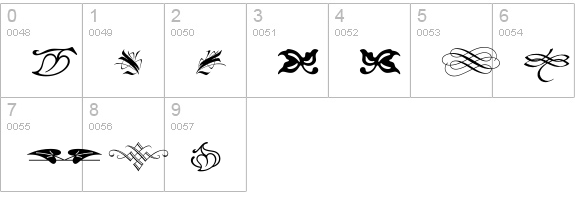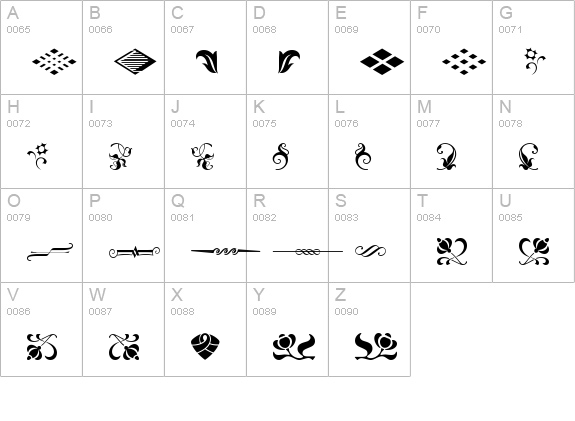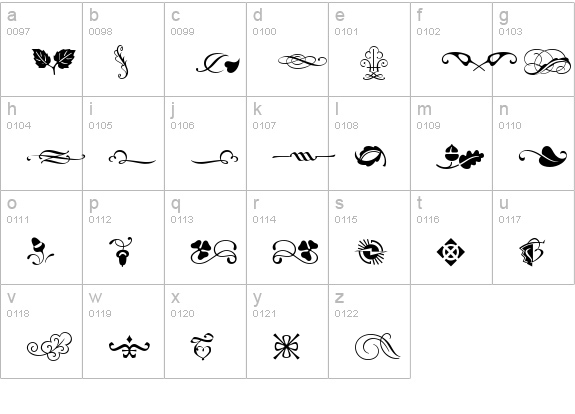
Type Embellishments One Font Details
Type Embellishments One is a stunning and versatile font that effortlessly combines elegance with a touch of playfulness. Designed with meticulous attention to detail, this font features delicate swirls, loops, and flourishes that add a unique and artistic touch to any design project. With its wide range of decorative ornaments and embellishments, Type Embellishments One allows you to effortlessly enhance your typography and create eye-catching designs. Whether you're working on invitations, logos, posters, or any other creative project, this font is sure to add a touch of sophistication and charm. What sets Type Embellishments One apart is not only its beauty but also its accessibility. This font is freely available to download at FontsMarket.com, making it a valuable addition to any designer's toolkit. With just a few clicks, you can bring your designs to life with this exquisite font. The versatility of Type Embellishments One allows it to be used in various design styles, from vintage and retro to modern and contemporary. Its intricate details and graceful curves make it perfect for adding a touch of elegance to wedding invitations, greeting cards, and stationary. Whether you're a professional graphic designer or a creative enthusiast, Type Embellishments One is a must-have font that will elevate your designs to new heights. So don't miss out on this incredible opportunity to enhance your typography with this free and captivating font, available for download at FontsMarket.com.